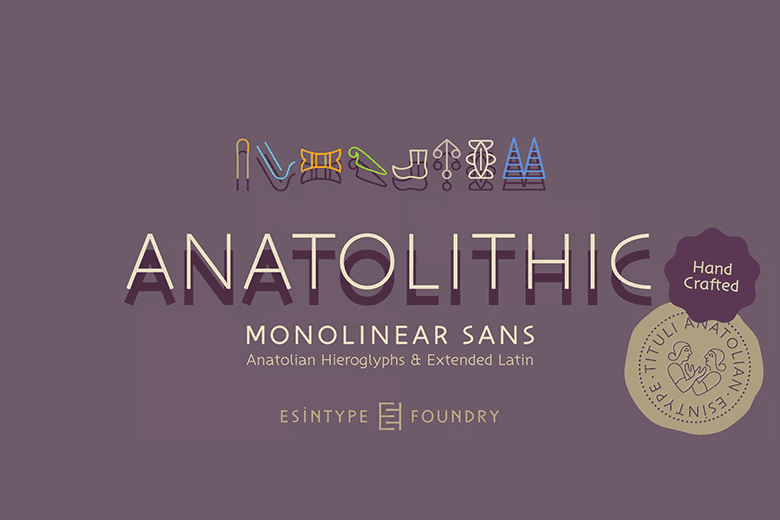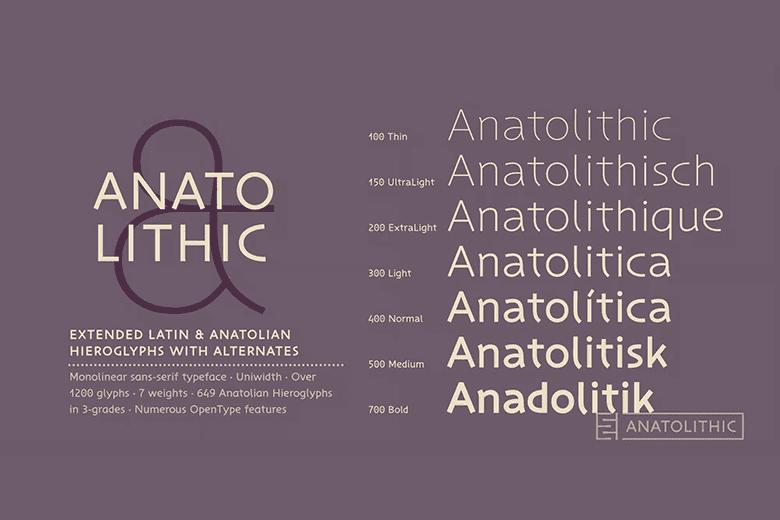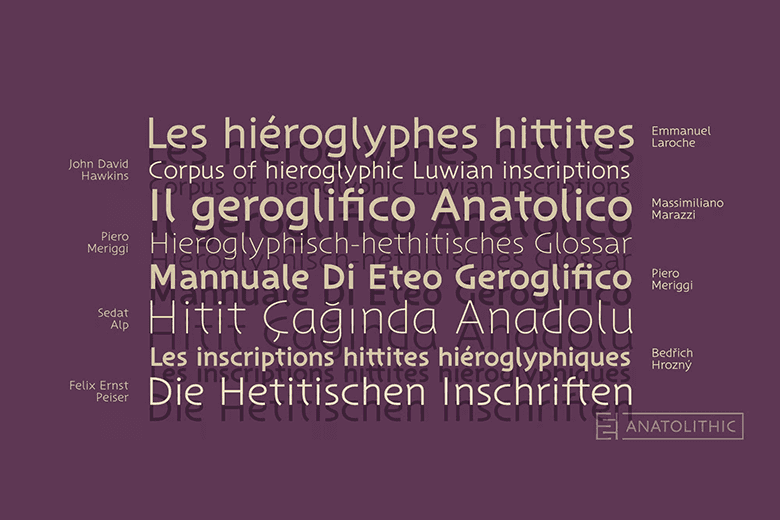
Anatolithic Font
Anatolithic- the full and current manifestation of the Anatolian Hieroglyphs, and a monolinear sans typeface with inscriptional origins inspired by the letterforms of Anatolia are said to have been the origins of Indo-European languages. The Latin script component serving as an adjunct to the Anatolian Hieroglyphs, and the latter to the Latin script.